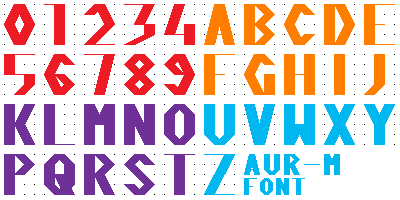
Somehow this font concept came to my mind today. Well, I have been thinking of this font design since a few months ago and it is meant to have a design that is luxury-esque and mininal. It was that one time I dreamt of my own vision of a future Just Dance game, "Just Dance 2025 Edition" which would use this new font in its song trailers. That dream game would have a gold theme to it because Just Dance 2025 Edition will mark the 15th anniversary of the Just Dance franchise, so it needs some fancy elements to celebrate the occasion. Regarding the name of the font, I was supposed to call it the "Aurum" font but the name was already taken, so instead I named it "AUR-M", which at least sounds similar to "aurum", which is Latin for the English word: "gold".This artwork for the font concept only shows the numbers 0-9 and capital letters A-Z for now.